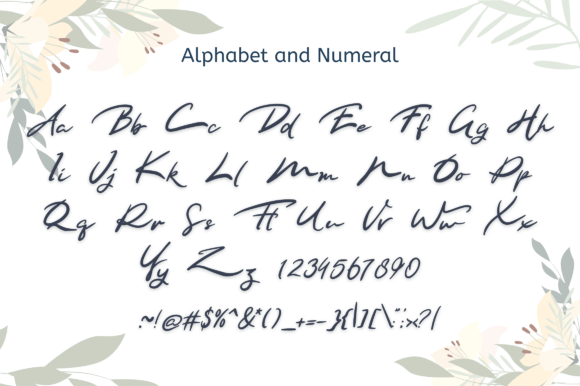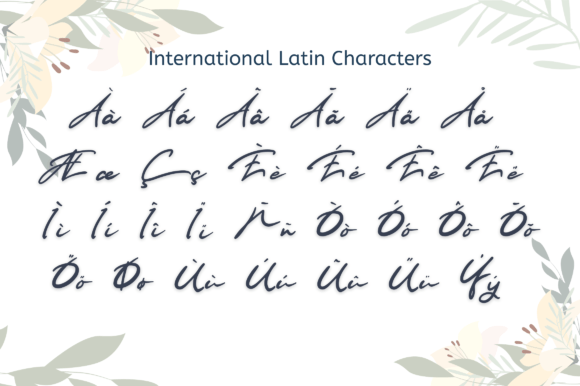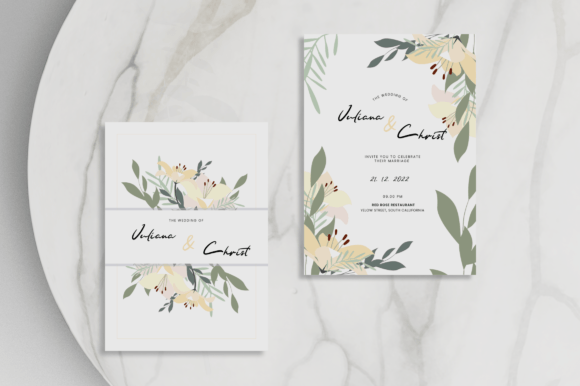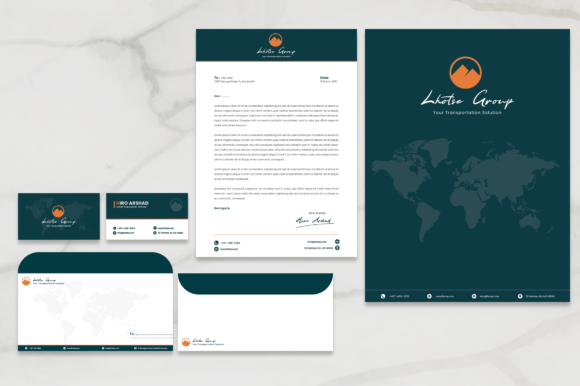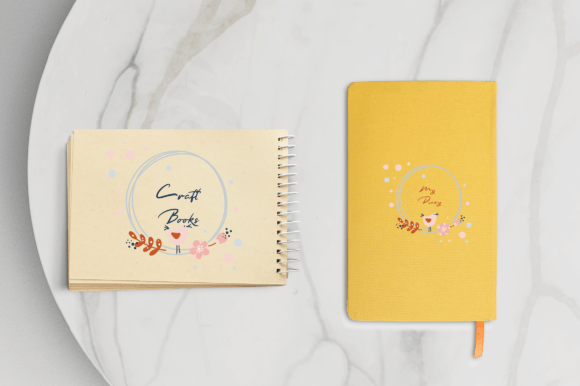
Andrew Smith Font
About Andrew Smith Font
Andrew Smith is a gracefully flowing signature script font, defined by an elegant touch that makes it an ideal choice for your favorite projects. Its distinct and timeless style is sure to capture your admiration, and you can use it to craft spectacular designs that resonate with sophistication and beauty.
The flowing signature script of Andrew Smith imparts a sense of grace and refinement to your designs. Each stroke is meticulously crafted to create a seamless and elegant flow, adding a touch of sophistication to the overall aesthetic. This versatility makes Andrew Smith well-suited for a range of projects, from formal invitations to high-end branding.
The elegant touch that defines Andrew Smith elevates it beyond being just a font; it becomes a visual statement. Its timeless style ensures its adaptability to various design trends, making it a reliable choice for projects that demand a classic and refined look.
Andrew Smith is designed to enhance the visual appeal of your creations. Whether you’re working on invitations, branding materials, or any other design project, the font’s distinct style adds a layer of sophistication that sets your work apart. Its timeless charm allows it to be used in diverse contexts while maintaining a sense of elegance.
Embrace Andrew Smith as your signature script font for creating spectacular designs. Let its flowing signature and elegant touch be the guiding force in your creative projects, ensuring that your designs exude a distinct and timeless style. Whether used for formal or contemporary designs, Andrew Smith has the ability to bring a touch of sophistication and beauty to your favorite projects.